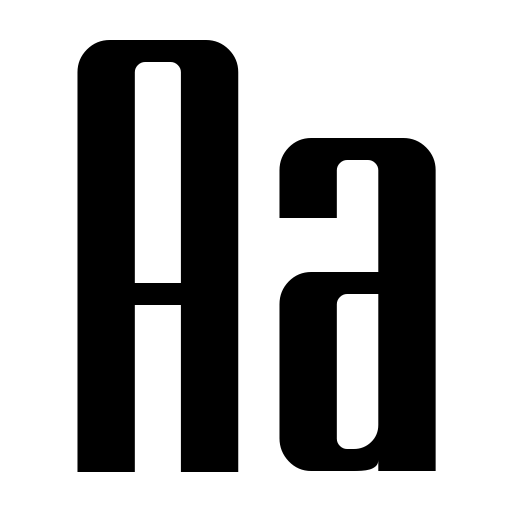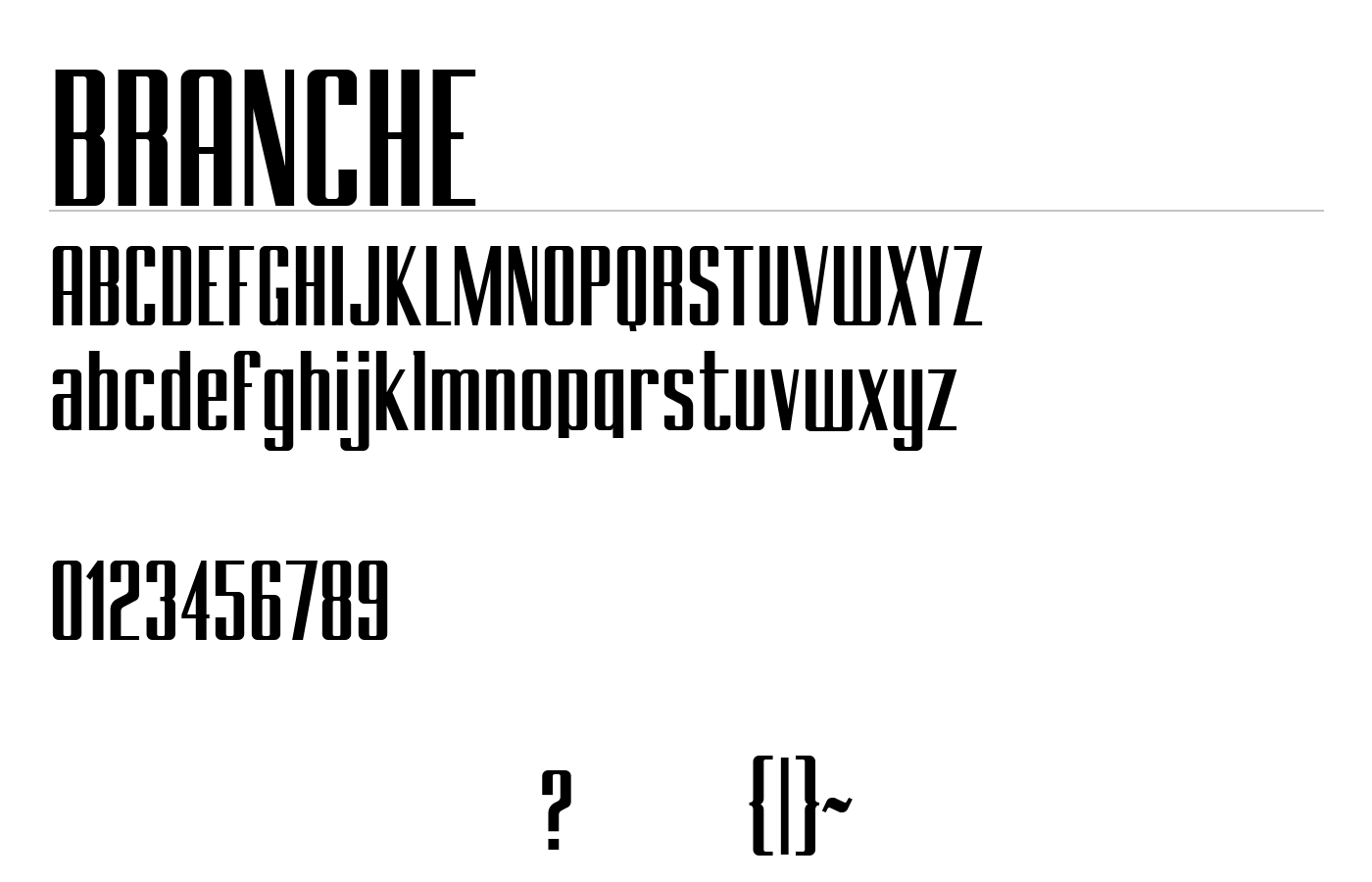
BRANCHE is a bold, condensed sans serif font characterized by tall, narrow letterforms and a uniform stroke weight that creates a striking, modern appearance. Its clean, geometric shapes and high x-height make it ideal for impactful headlines and branding that demands attention while maintaining a sleek, professional look. This font works especially well for editorial designs, posters, and fashion or luxury branding where a strong, contemporary presence is key.
BRANCHE Font
About BRANCHE Font